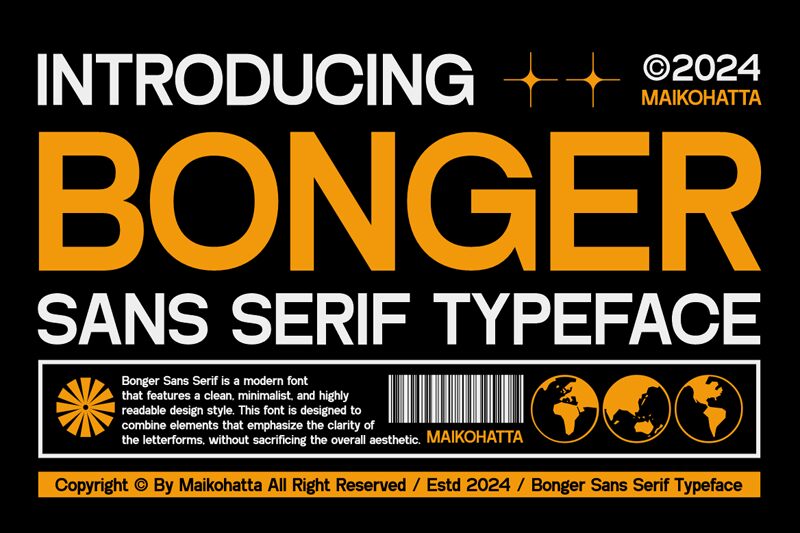
Bonger font family by Gilang Ternadho is a free sans serif collection designed to meet the needs of both professional and personal design projects. With minimalist, clean, and modern structures, the font captures a contemporary feel perfect for modern designs. Its sleek and straightforward shapes, coupled with its impact, make it highly readable yet impactful. The versatile collection contains two font styles, both equally capable.
Bonger is perfect for tech-related branding, corporate identity design, newspaper and magazine design, advertising, or marketing. You can implement it on your website or mobile app interface, PowerPoint presentation, and even in your printed T-shirts. Its use in book covers, posters, and even packaging is also a possibility.